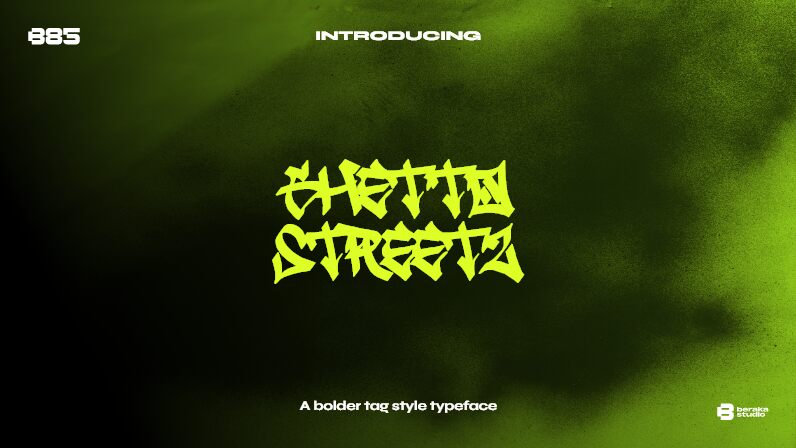
Ghetto Streetz font is a graffiti-inspired typeface by designer B85. This free font stands out with its aggressive angular letters built with heavy strokes to give each character a high-emphasis look. The tags appear bold and loud allowing them to be used in important contexts that require great visibility.
Excellent for headings, poster titles, business cards, invitations, ads headline designs that focus on technological topics as well as fashion-related projects. Other uses include marketing campaigns, magazine or book covers, branding visuals both digital and print ones among others.
It includes both upper and lower case letters.